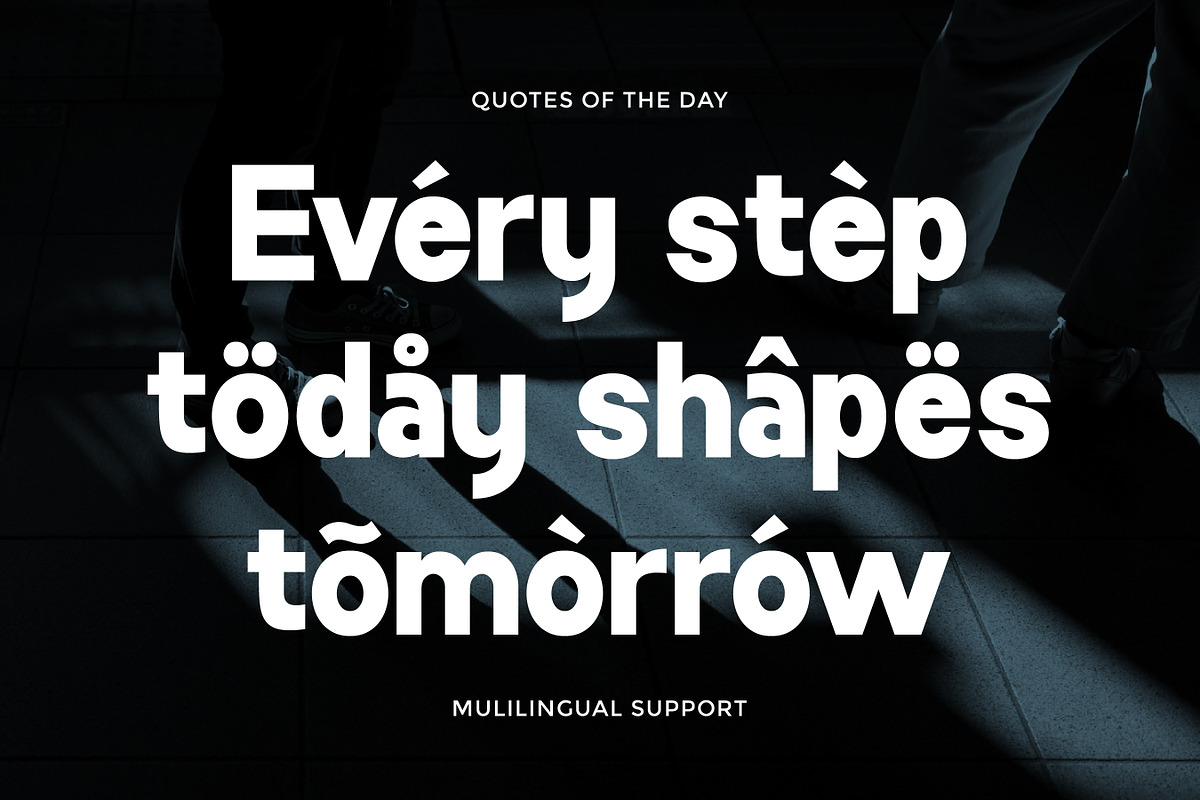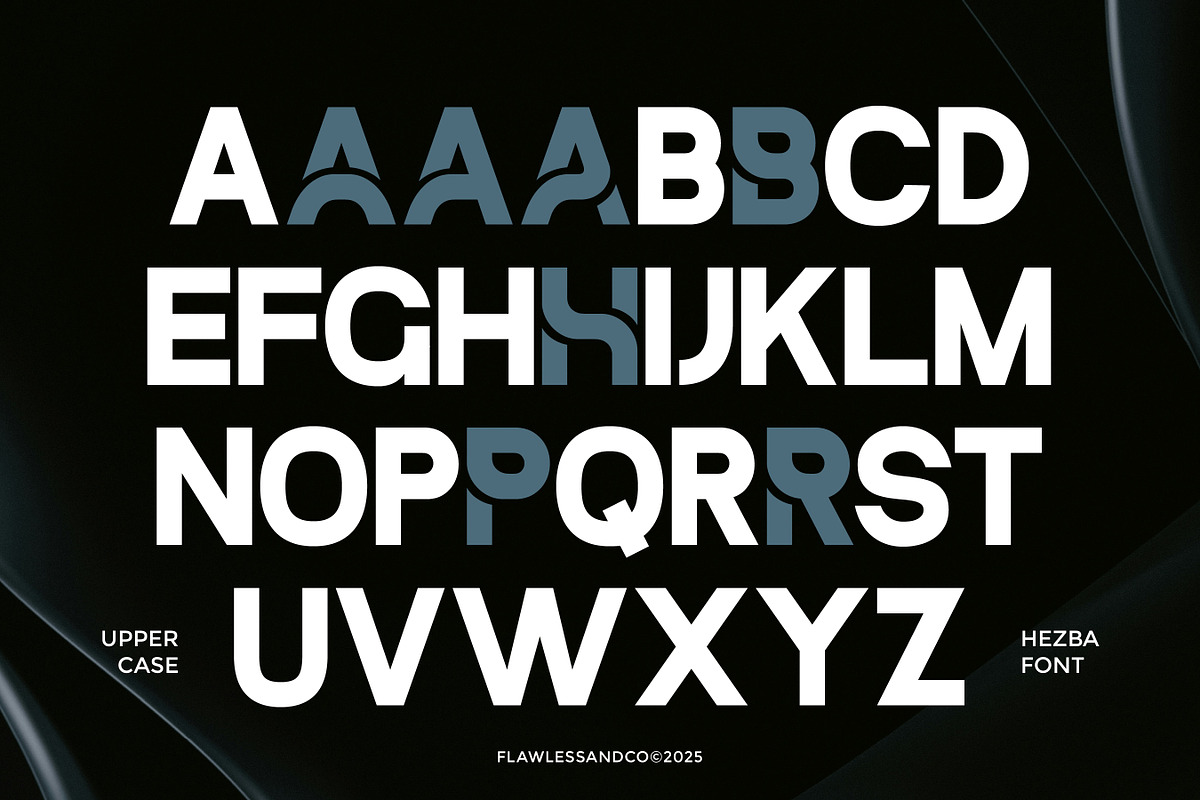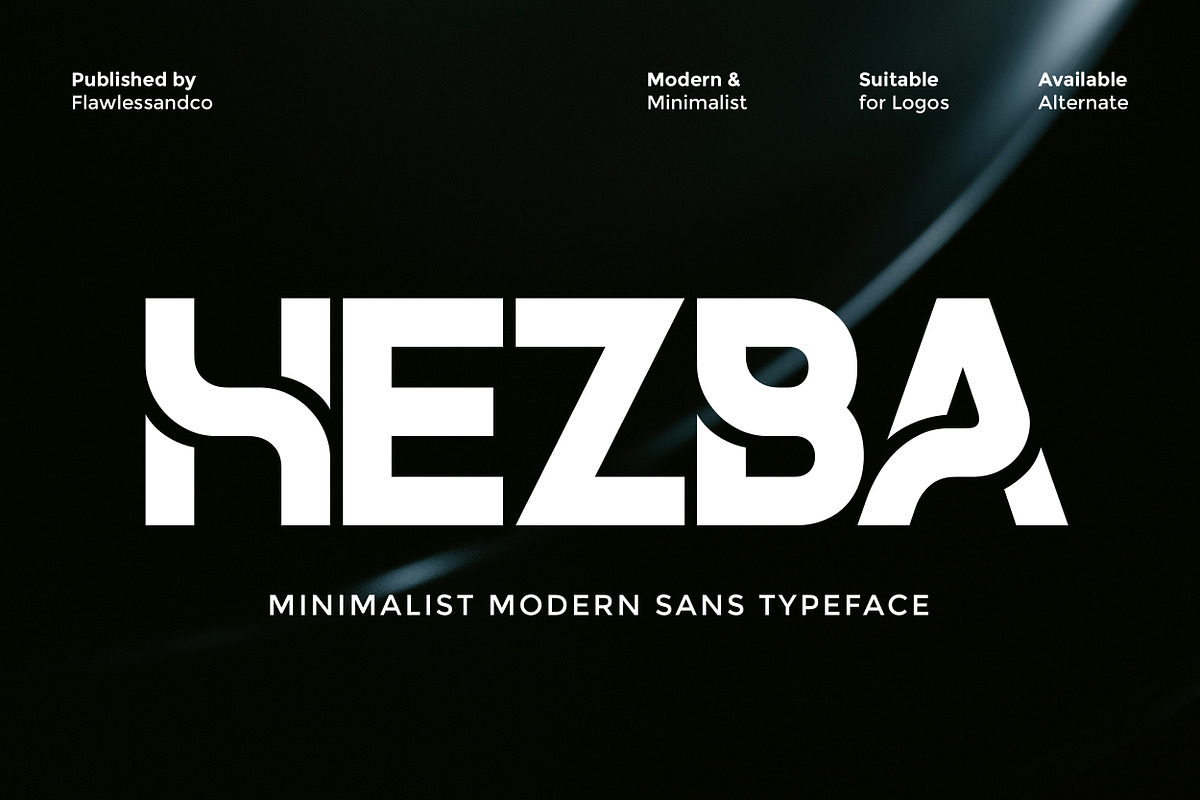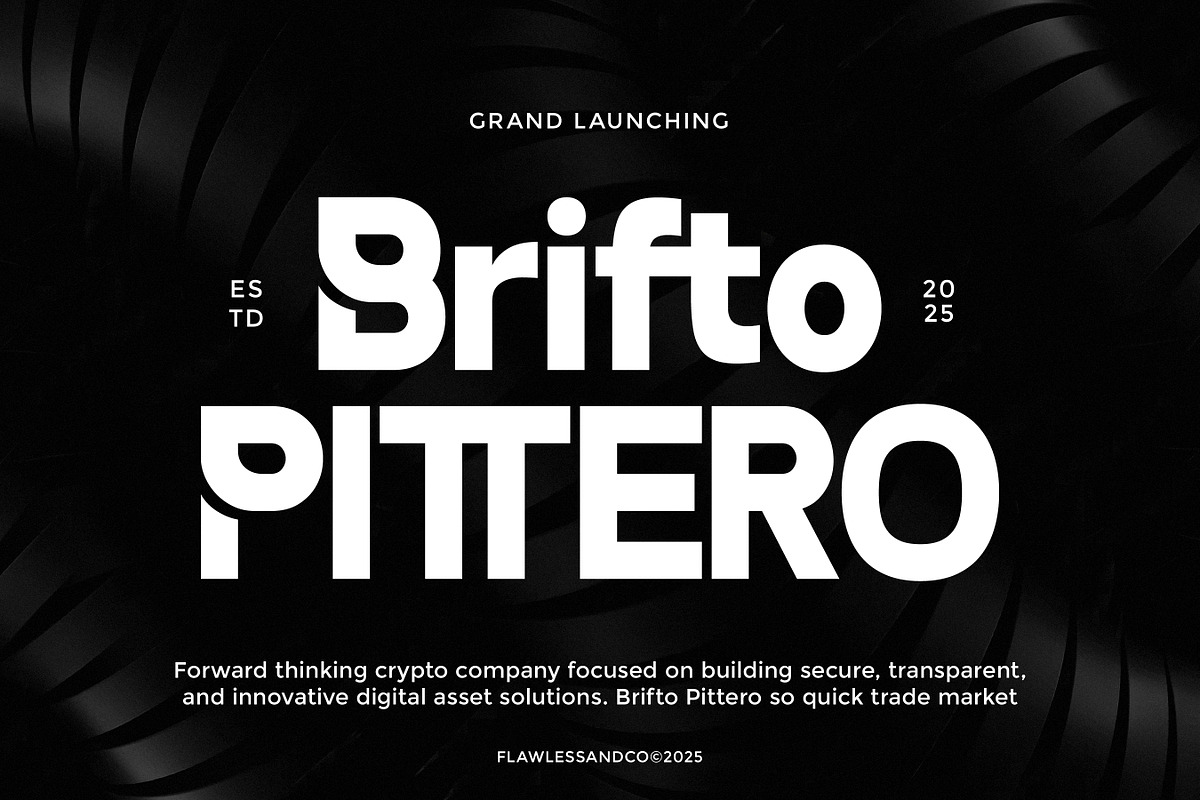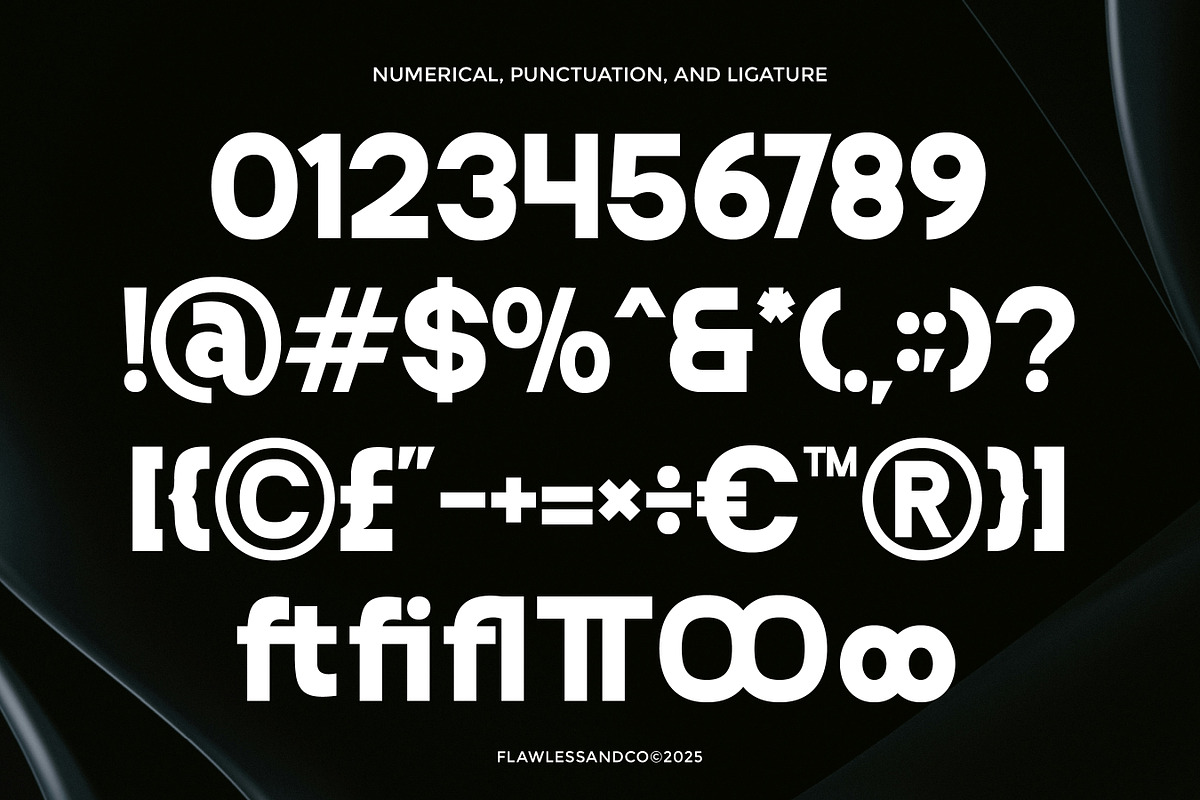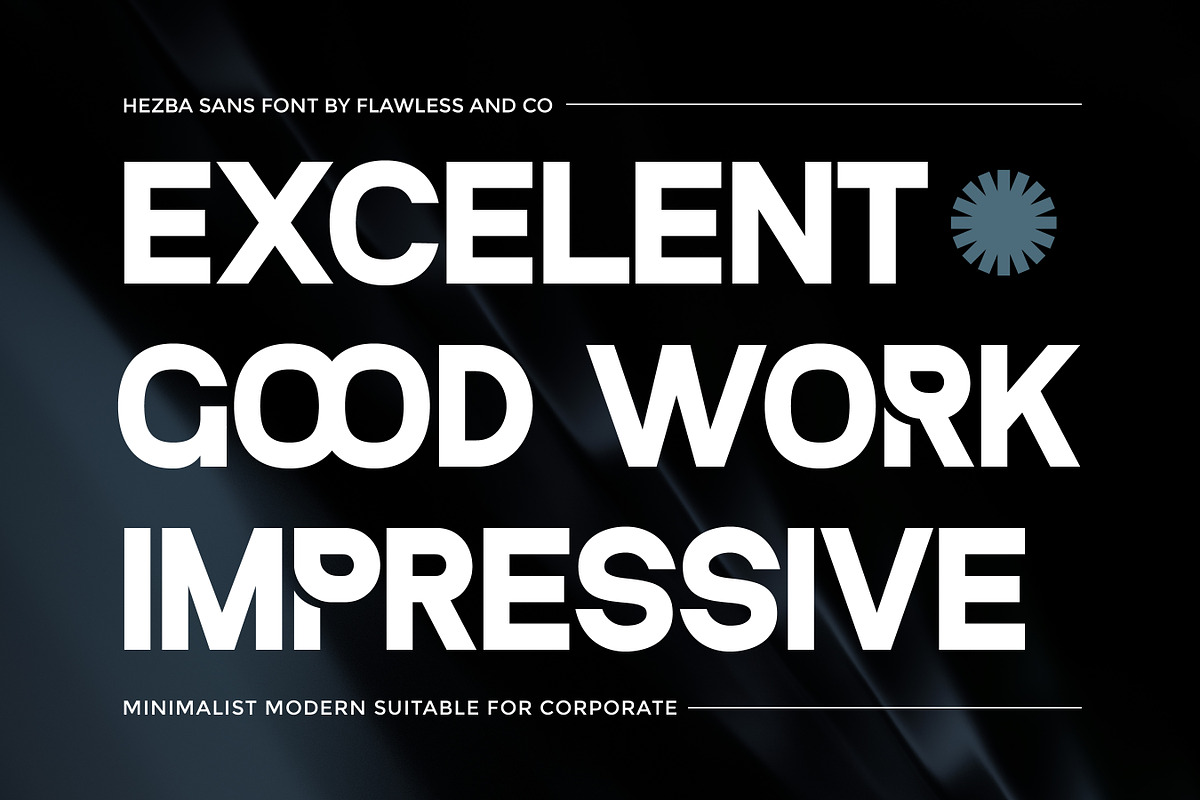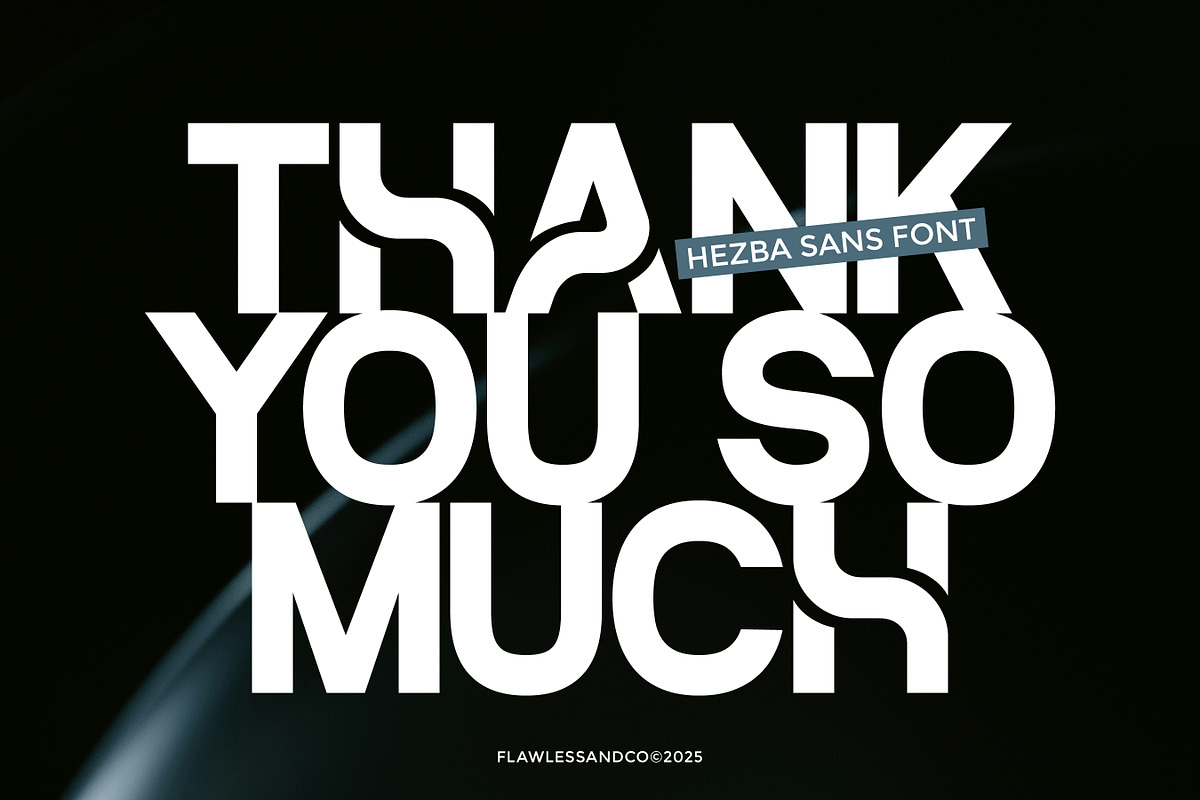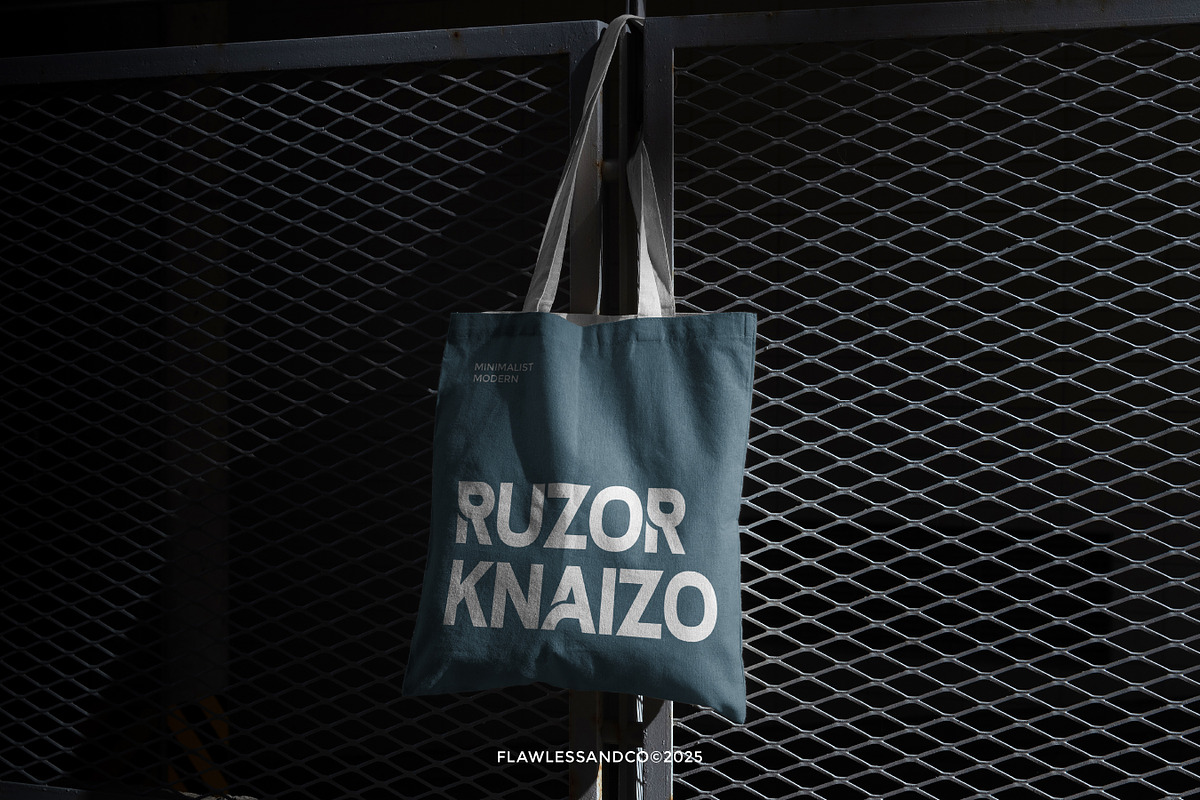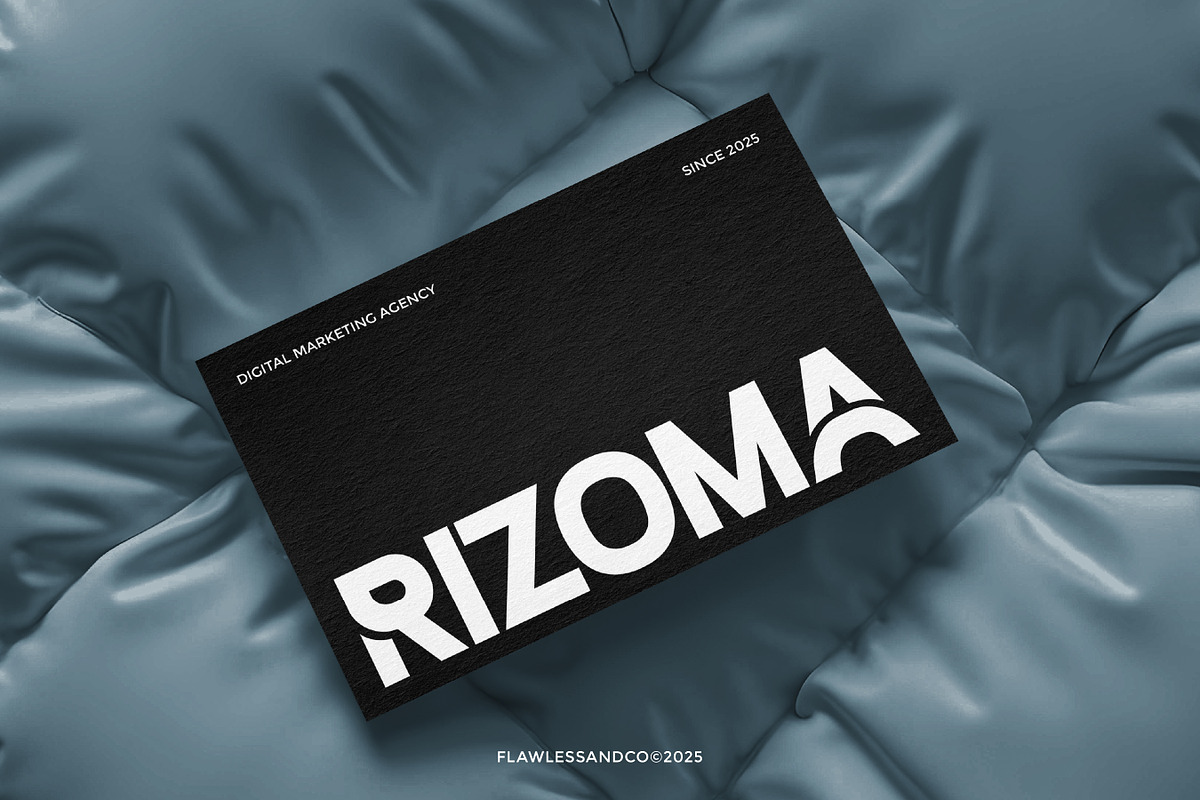
Hezba - Modern Sans Serif Font
Hezba is a modern sans serif typeface designed with a clean, minimalist, and contemporary approach. Its sharp structure, balanced proportions, and smooth curves make Hezba highly versatile and easy to read across various design applications.
Who Should Use Hezba?
Hezba is ideal for designers, brand creators, startups, and creative professionals who need a modern and minimalist typeface that communicates clarity, confidence, and simplicity.
A Must-Have Font for Brand and Logo Creators and Designers Hezba is a must-have font for brand and logo designers looking for a clean and contemporary look. Its minimalist style ensures logos remain timeless, scalable, and visually strong across different media.
Suitable for:
- Branding and logo design
- Corporate identity
- Startups and tech brands
- Website and UI design
- Editorial layouts
- Advertising and marketing materials
- Social media graphics
- Modern creative projects